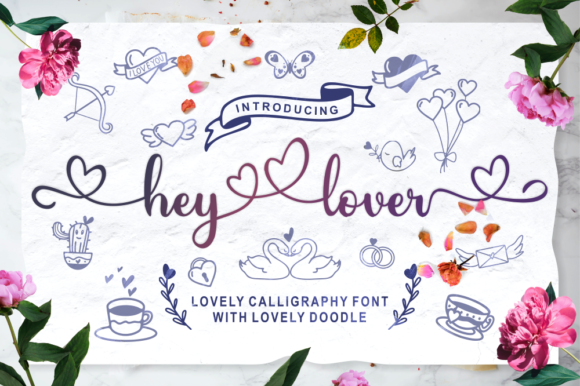
Introducing Hey Lover Font, the perfect script font for your special occasions! Created by the talented Nun Creatype, this font is designed to add a touch of romance and elegance to all your designs. With its cute ligatures and stunning swashes, Hey Lover Font will captivate your heart and inspire creativity like never before.
Imagine the enchanting beauty of handwritten calligraphy combined with the convenience of digital fonts. Hey Lover Font brings this dream to life, allowing you to effortlessly create breathtaking wedding invitations that will leave a lasting impression on your guests. Each stroke of this font exudes love, making it the ideal choice for a stunning wedding welcome sign that sets the tone for your special day.
But Hey Lover Font doesn't stop there. It is a versatile companion for all your design needs. Elevate your stationary art with its authentic feel and use it to craft captivating social media posts that grab attention and boost engagement. Let your creativity run wild as you create adorable greeting cards that will bring smiles to your loved ones' faces.
What sets Hey Lover Font apart is its ability to evoke emotions. With every curve and swirl, it captures the essence of love, passion, and joy. It's not just a font; it's a journey through emotions, transforming your designs into heartfelt expressions that touch the souls of your audience.
Unleash your imagination and explore the endless possibilities that Hey Lover Font offers. Whether you're a seasoned designer or a passionate DIY enthusiast, this font empowers you to create masterpieces that leave an indelible mark. It's time to embrace the power of words and let Hey Lover Font be your artistic companion.